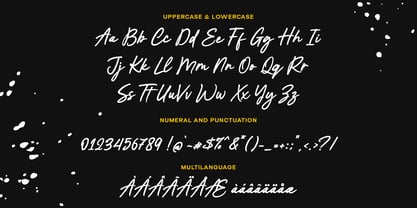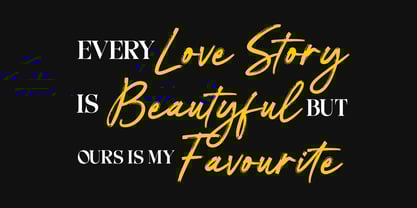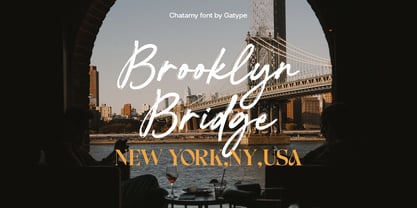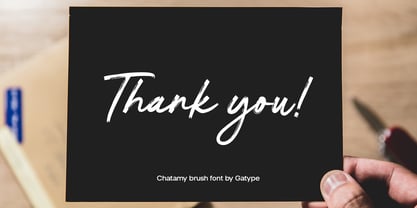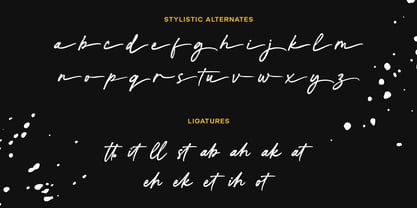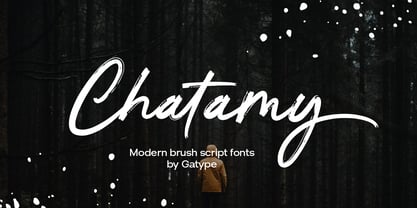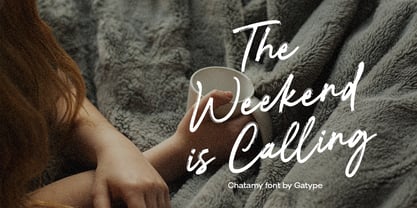
Chatamy
by Gatype
The Chatamy Font Family was designed by khaidir and published by Gatype. Chatamy contains 1 styles. More about this family
The Chatamy font is a brush-style typeface characterized by smooth, elegant, and slightly messy handwritten letters. The letters appear as if drawn with a soft-tipped brush, creating an artistic and natural look. The strokes of the letters tend to be thick with dynamic thin variations, adding a modern and personal touch.
This font is often used for design projects such as invitations, logos, or branding that require a creative yet elegant feel.
Designers: khaidir
Foundry: Gatype